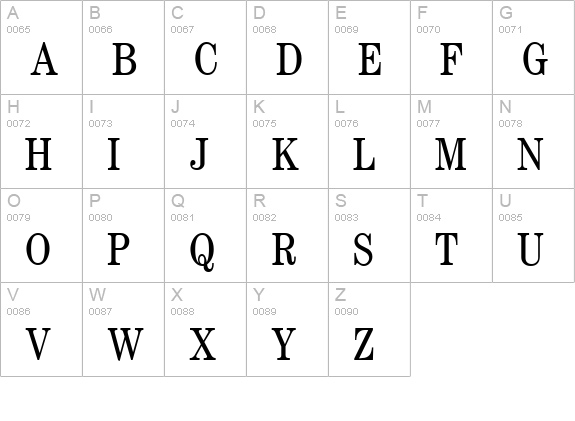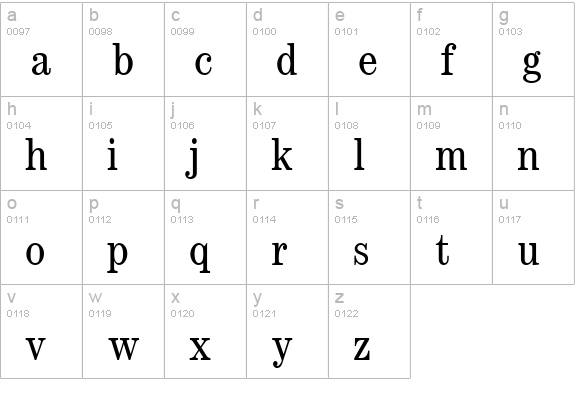
Century Regular is the standard, neutral variant in the Century typeface family \xE2\x80\x94 well suited to general body text, paragraphs, and standard typographic work.
Century Regular font is a timeless typeface that exudes elegance and sophistication. With its classic serif design and well-balanced proportions, Century Regular is a versatile font that can be used for a wide range of design projects. Whether you're creating a professional document, a stylish invitation, or a sleek website, Century Regular will add a touch of refinement to your work. The best part is that Century Regular is available for free download at FontsMarket.com. This means you can easily access this high-quality font without any cost, making it a valuable addition to your font collection. So why wait? Enhance your designs with the timeless beauty of Century Regular today!